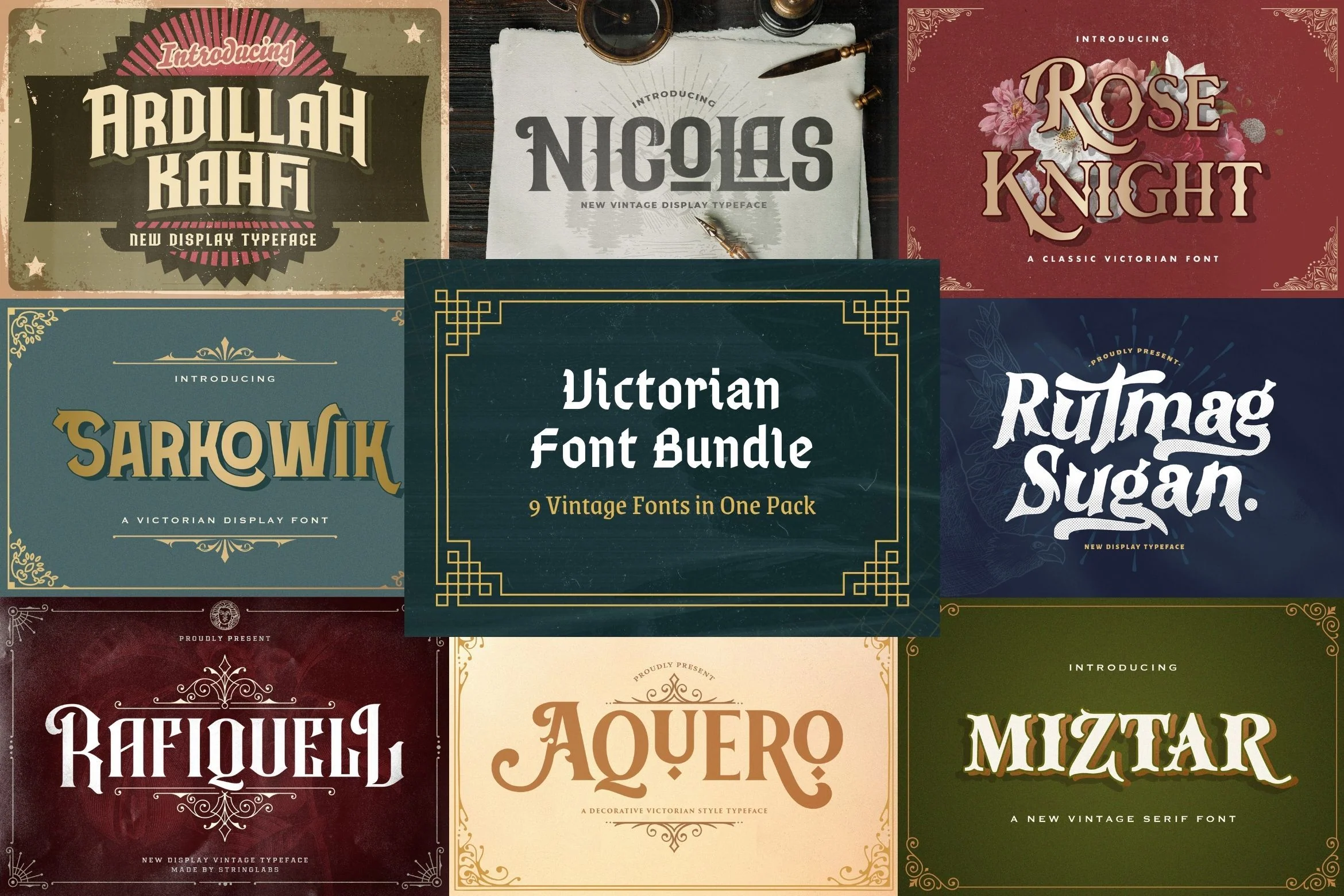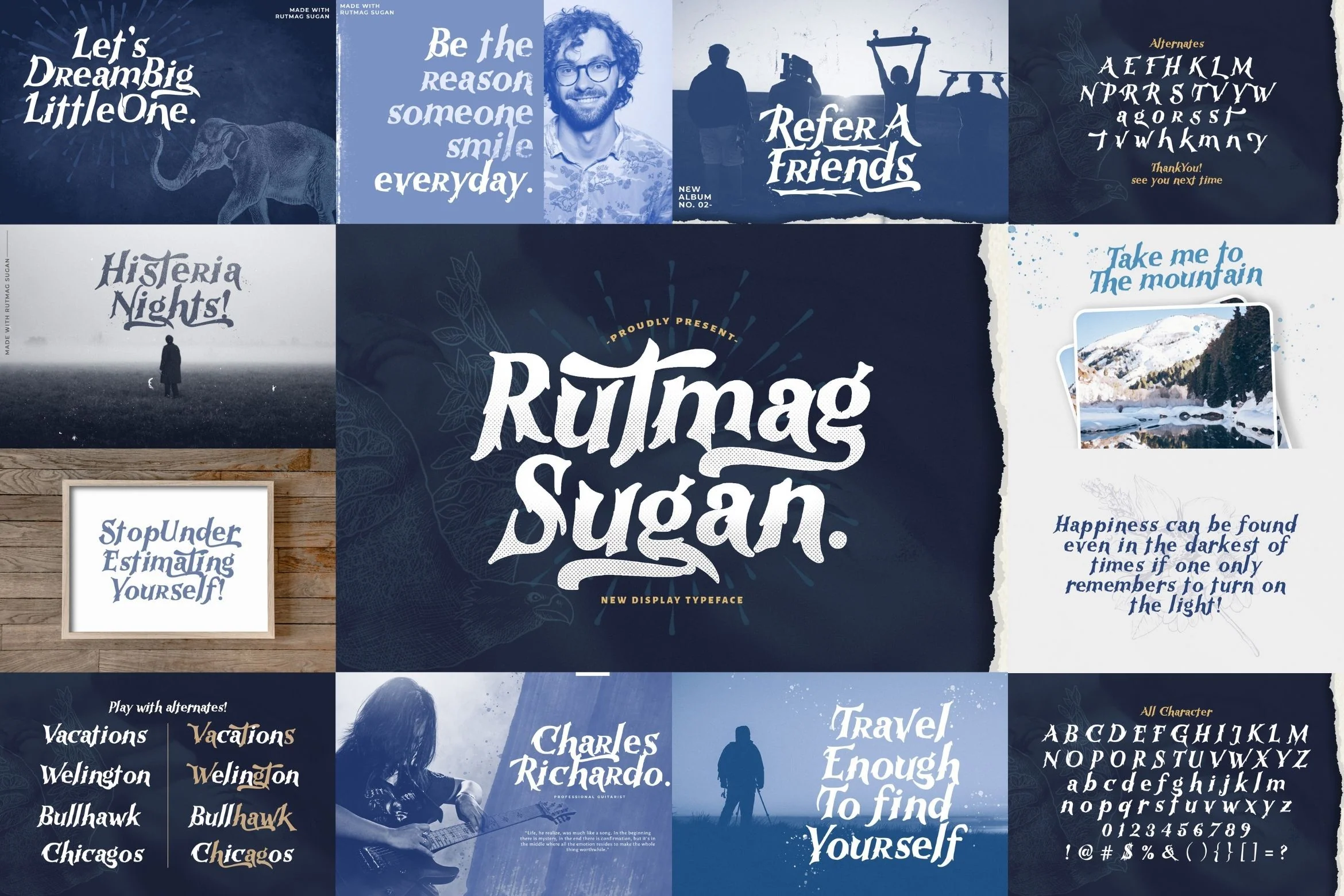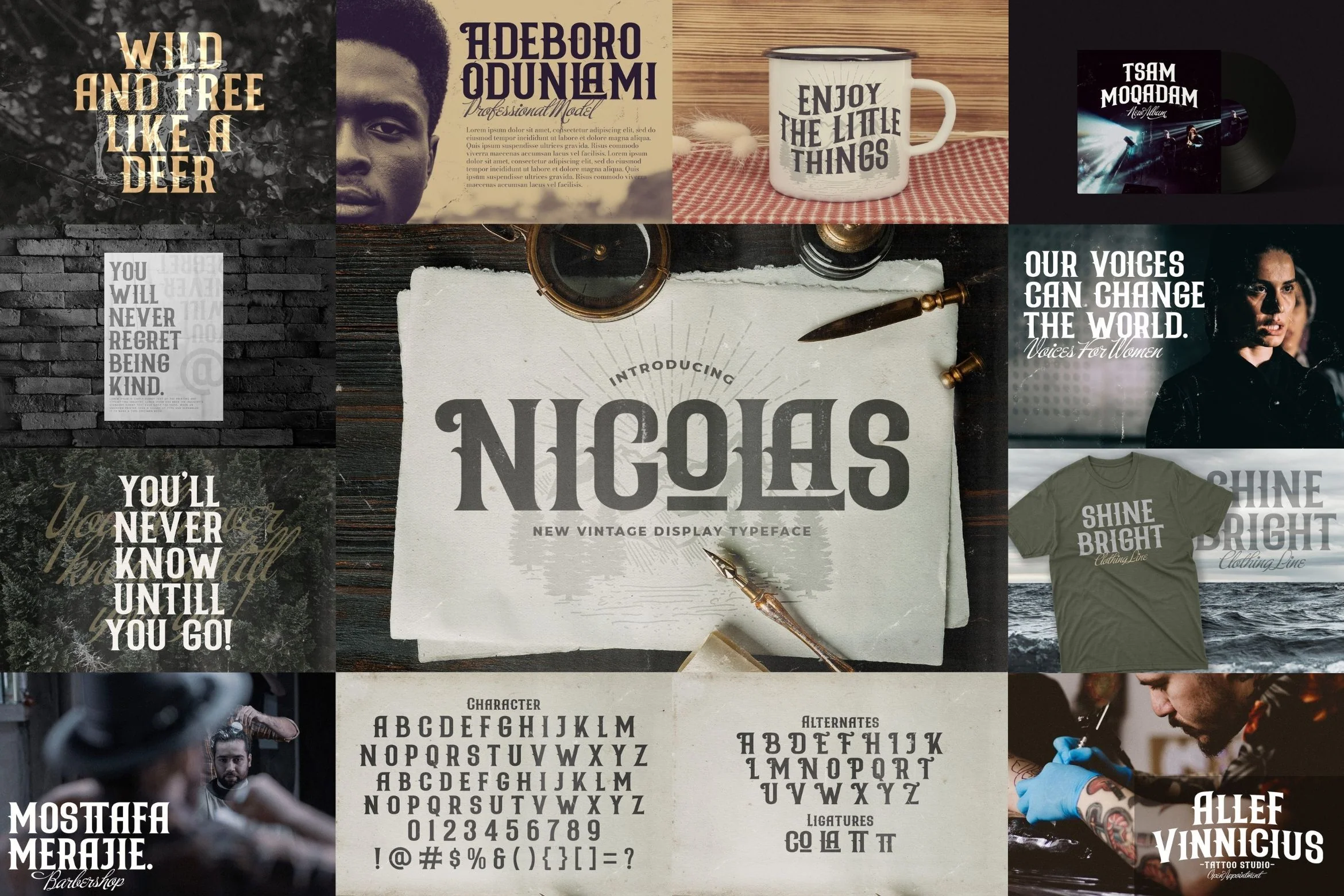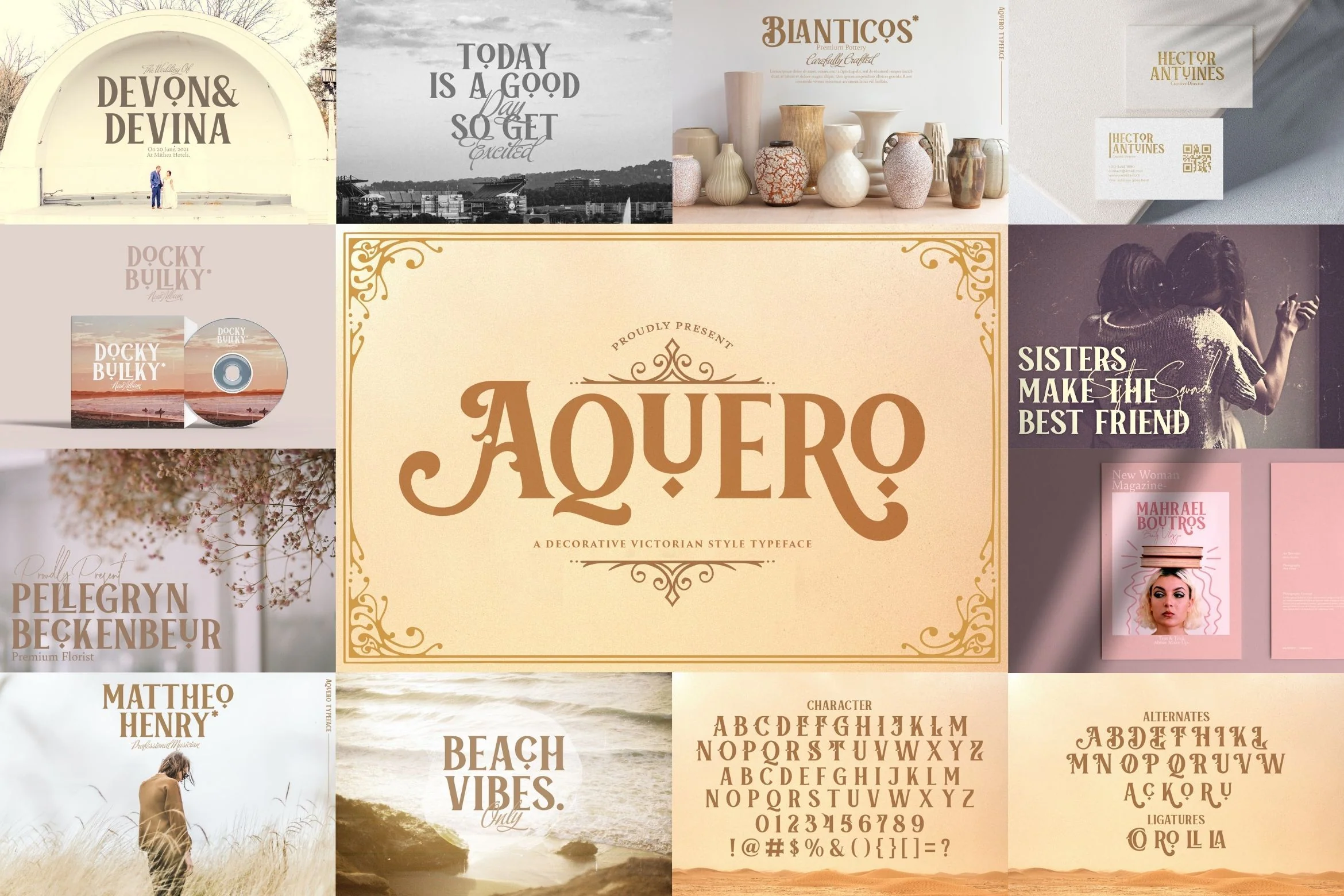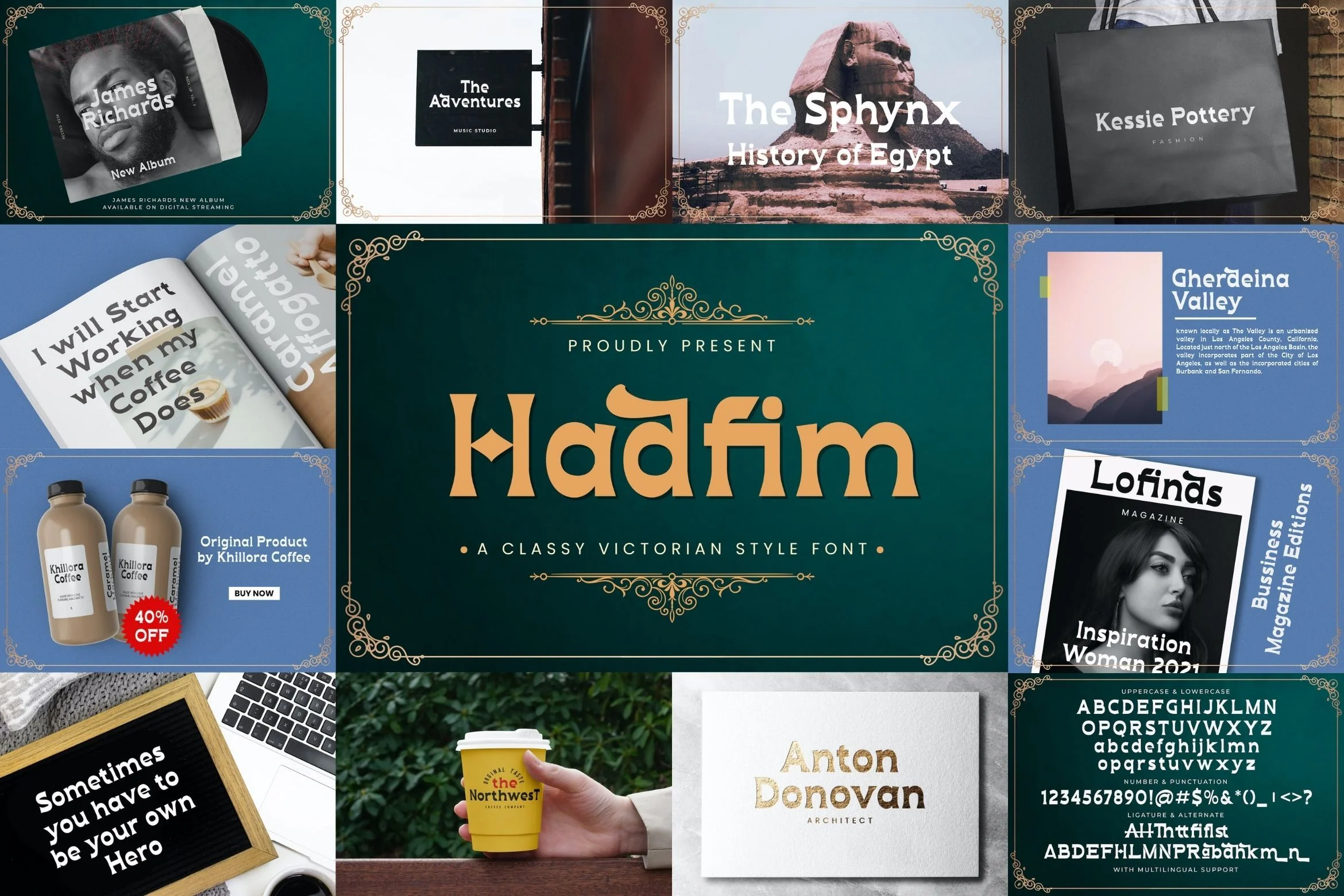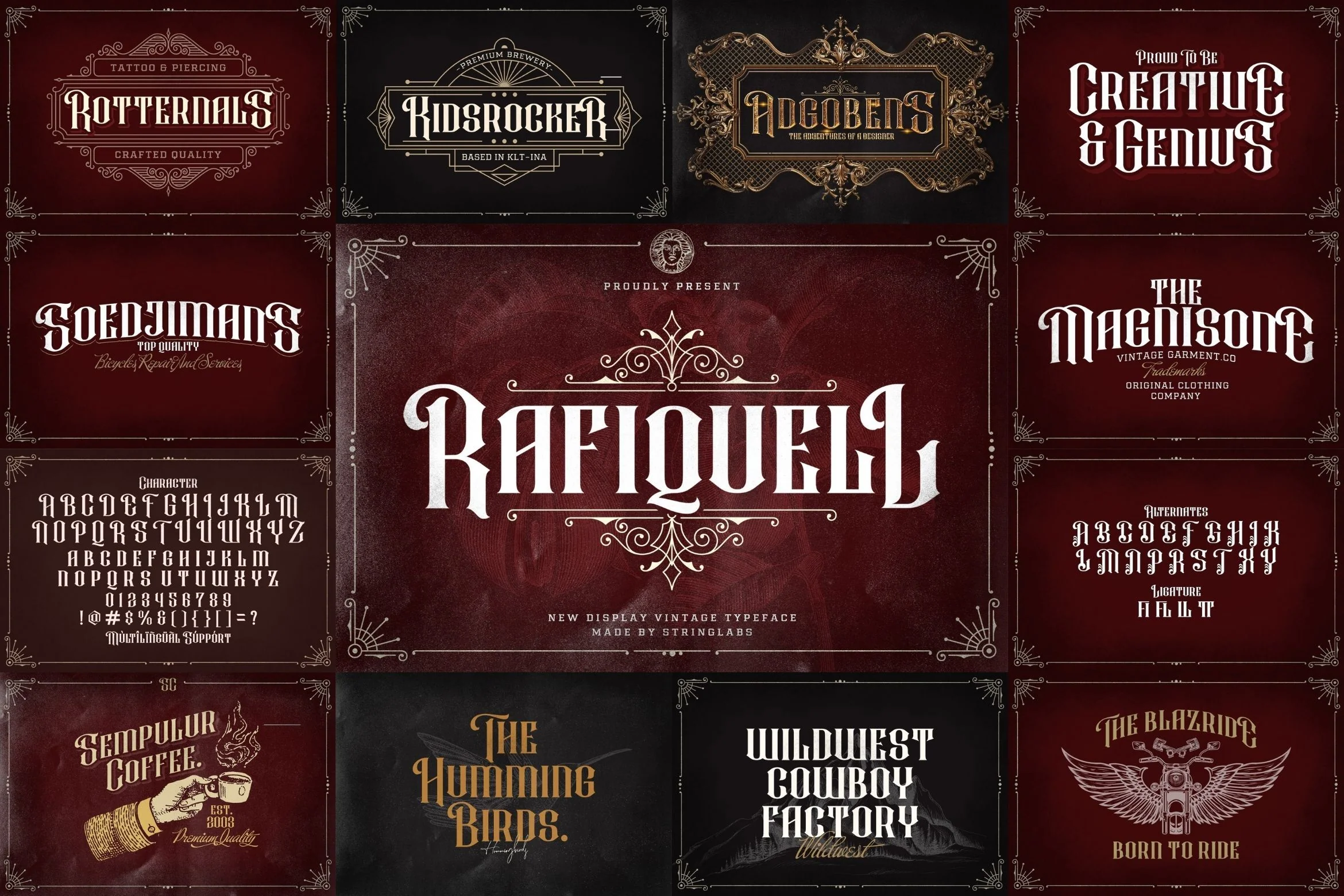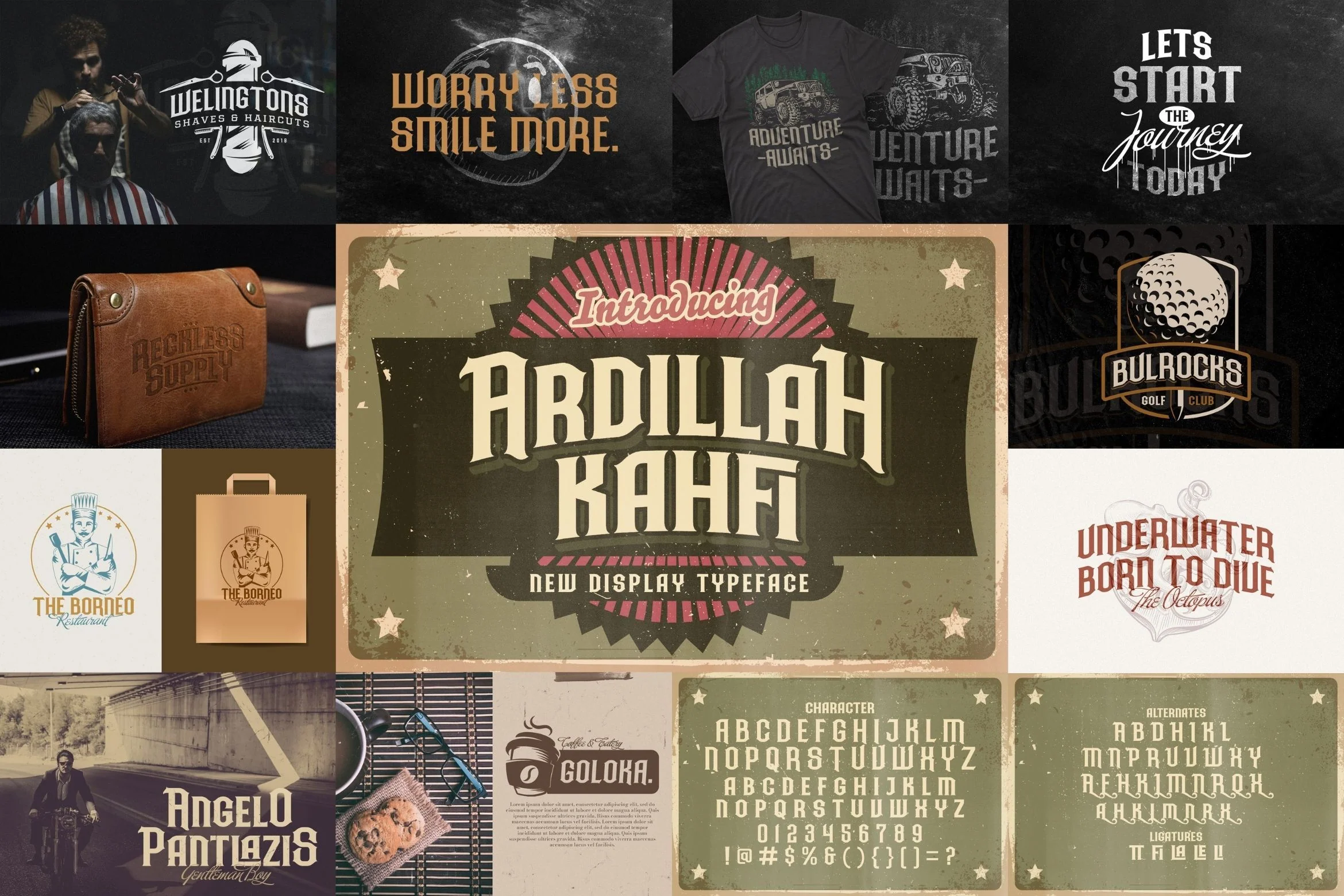
Victorian Font Bundle
Introducing Victorian Font Bundle. This font bundle contains 9 high quality victorian, blackletter, and gothic fonts with unique variation styles. This font bundle also has a vintage style that will make your design look outstanding and cool.
1. Ardillah Kahfi
2. Miztar
3. Rafiquell
4. Rose Knight
5. Hadfim
6. Sarkowik
7. Aquero
8. Nicolas
9. Rutmag Sugan